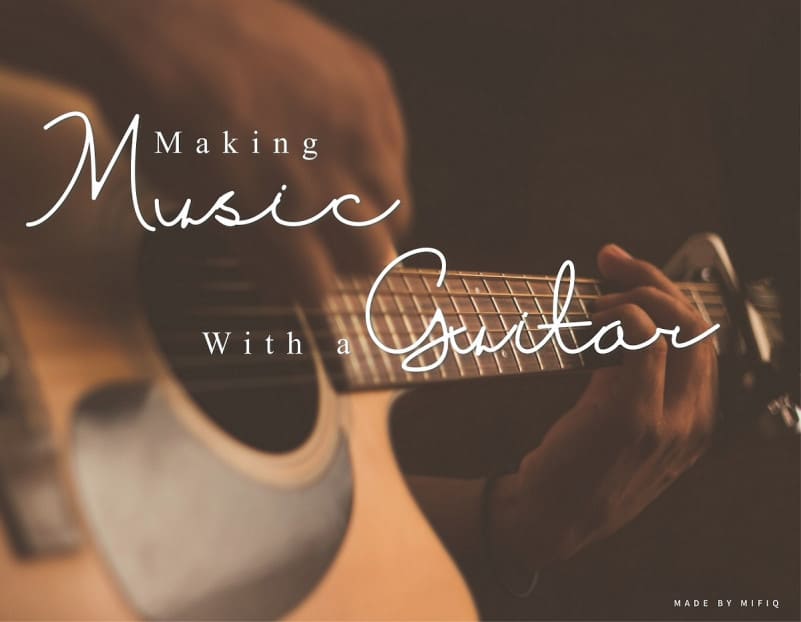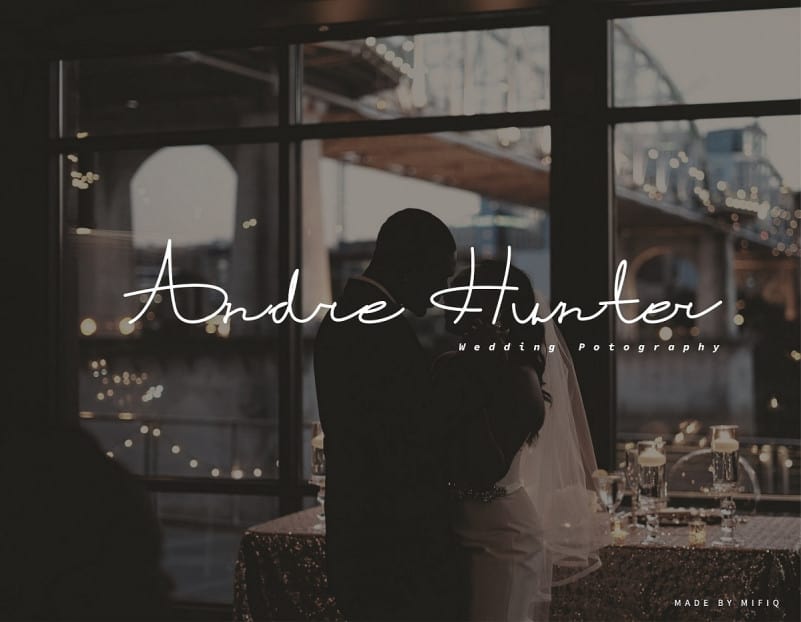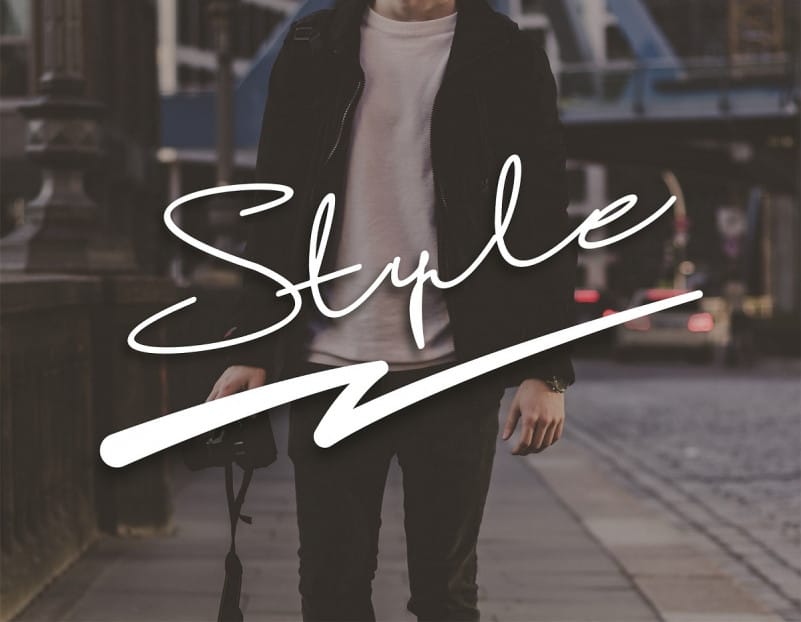
Firpi Lephril Handwritten Font
Firpi Lephril is an elegant handwritten script font with a smooth and natural flow. Its stylish curves and authentic touch make it perfect for creating stunning personal projects.
Ideal for:
• Personal wedding invitations & greeting cards
• DIY craft projects (Cricut, Procreate, Canva)
• Quotes, journals & planners
• Social media graphics & personal branding